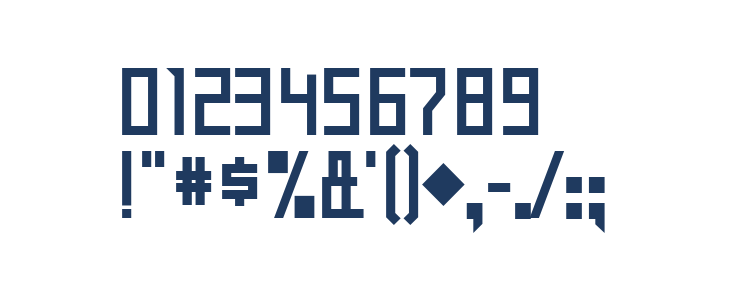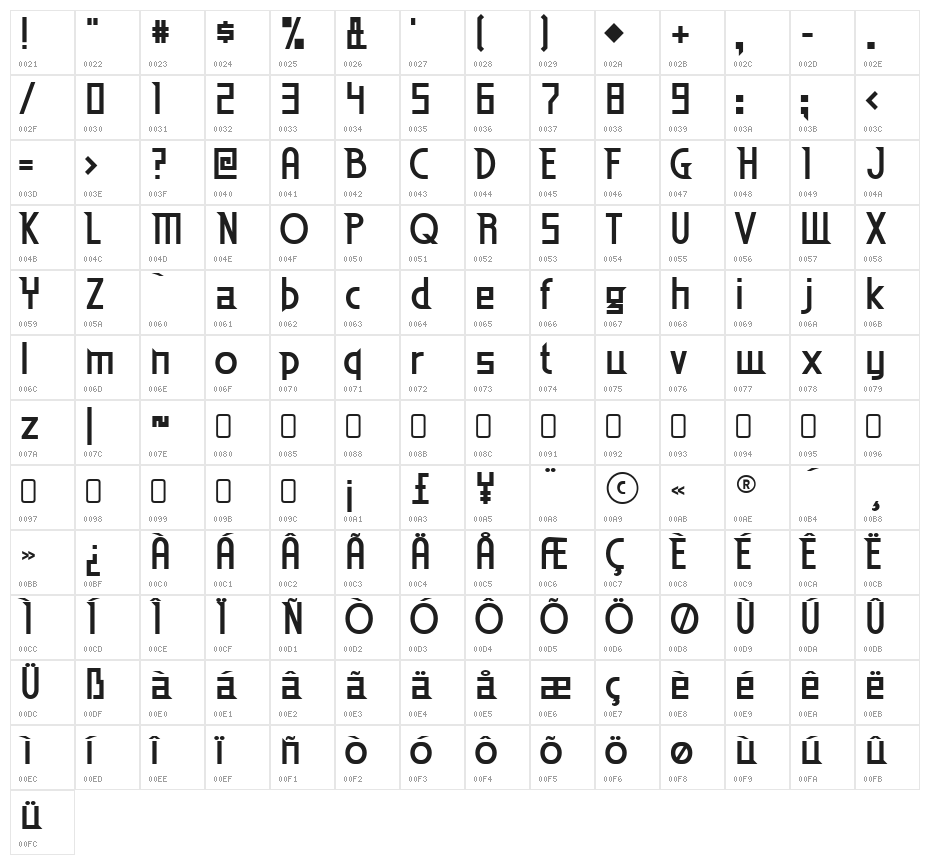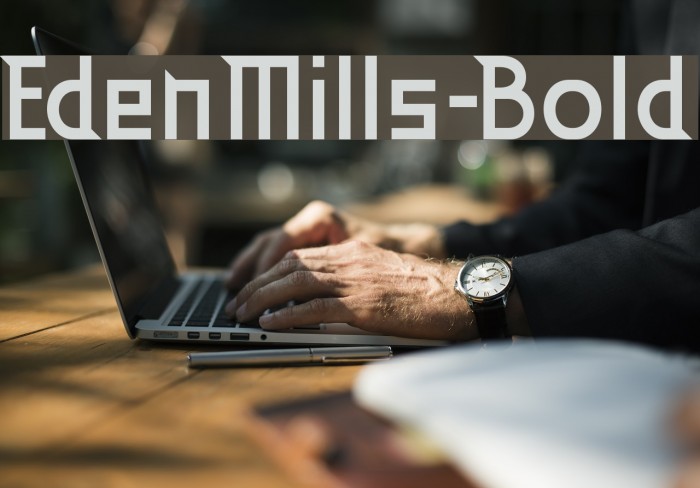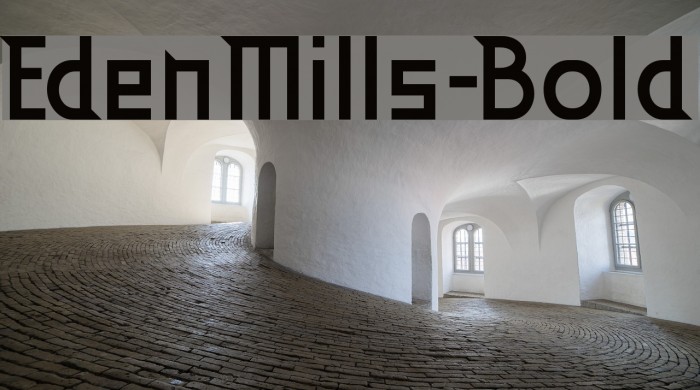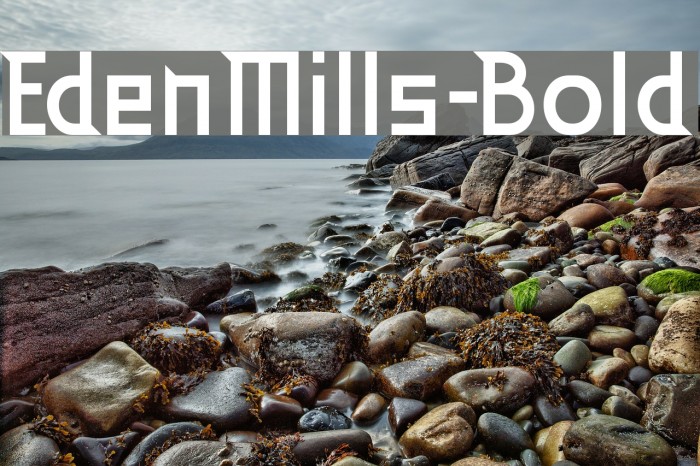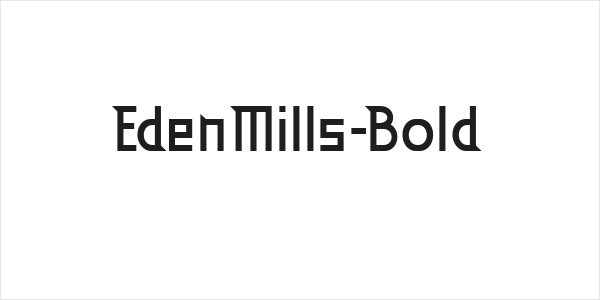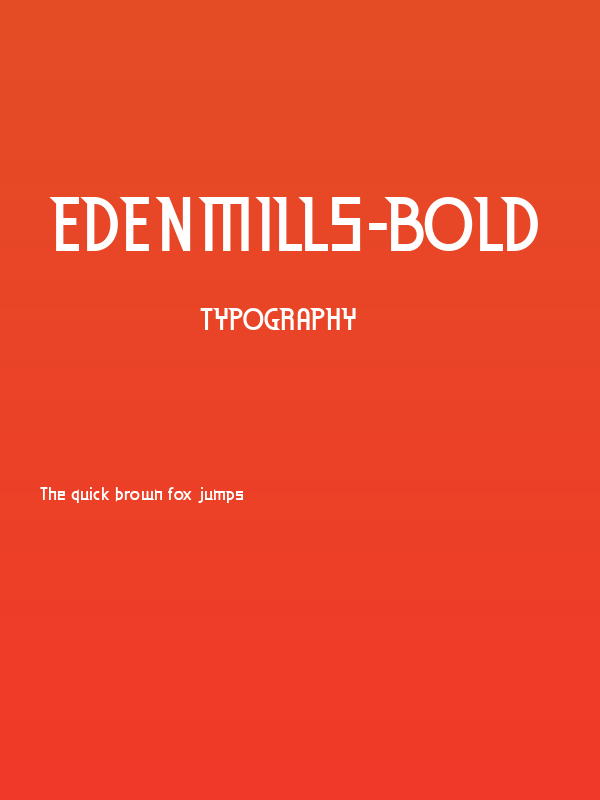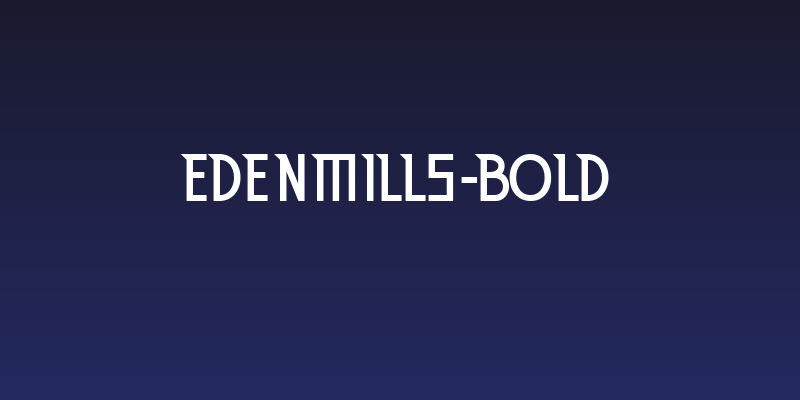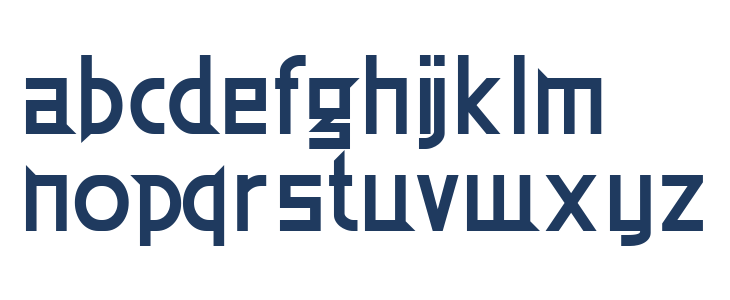
EdenMills-Bold Font
EdenMills-Bold Description
This font features a bold and geometric design with a modern twist. The characters are constructed with sharp angles and clean lines, giving it a futuristic and dynamic appearance. The uppercase letters are particularly striking, with unique cuts and edges that create a sense of movement and energy. The lowercase letters maintain the same geometric style, ensuring consistency across the typeface. The numerals are equally bold and angular, making them stand out effectively. Special characters are designed with the same attention to detail, providing a cohesive look throughout. This font is perfect for projects that require a strong and contemporary aesthetic.
Proposed ProjectsIdeal for branding, advertising, posters, and any design work that requires a bold, modern look.